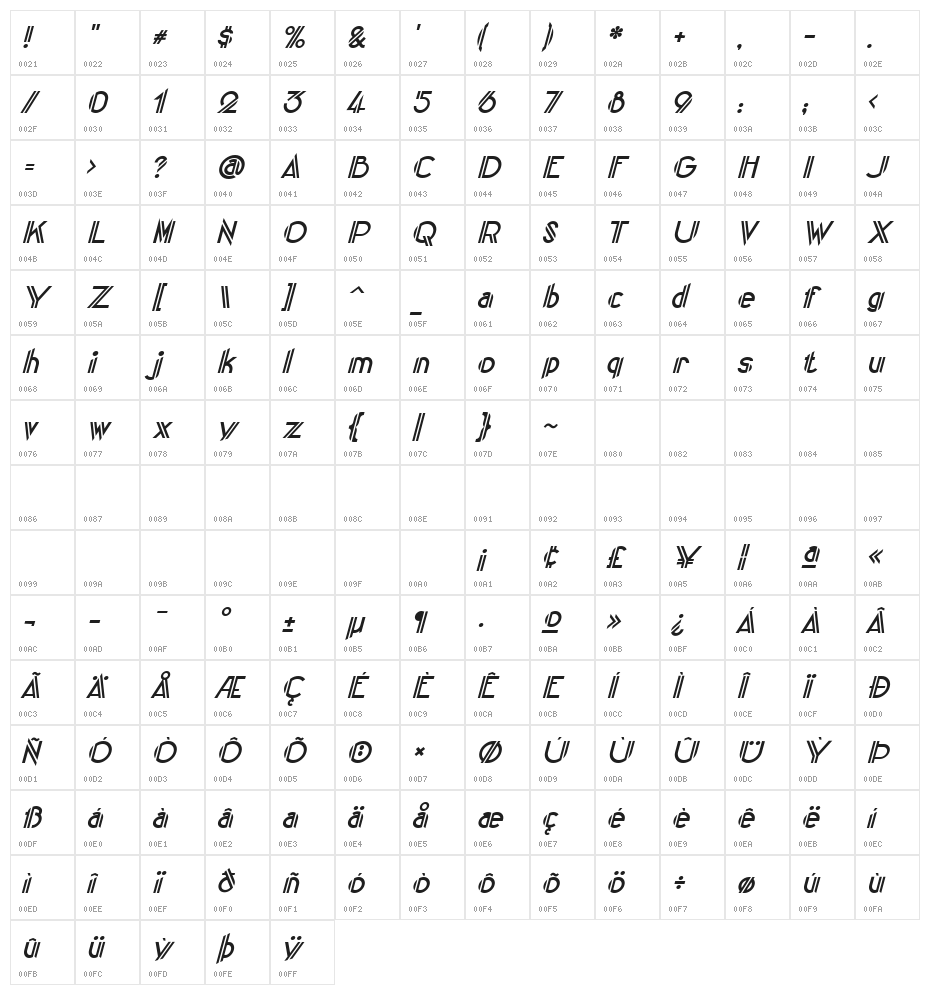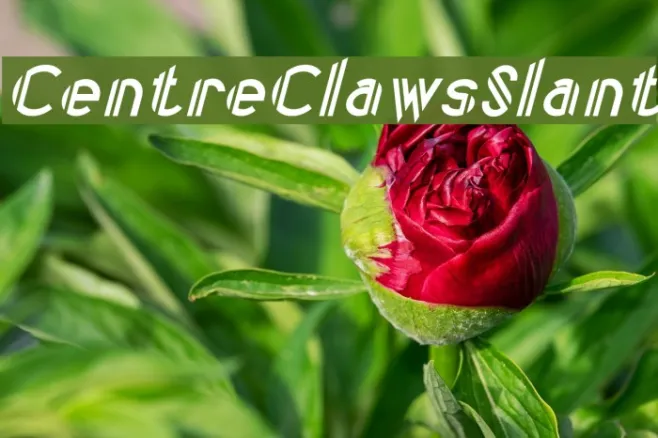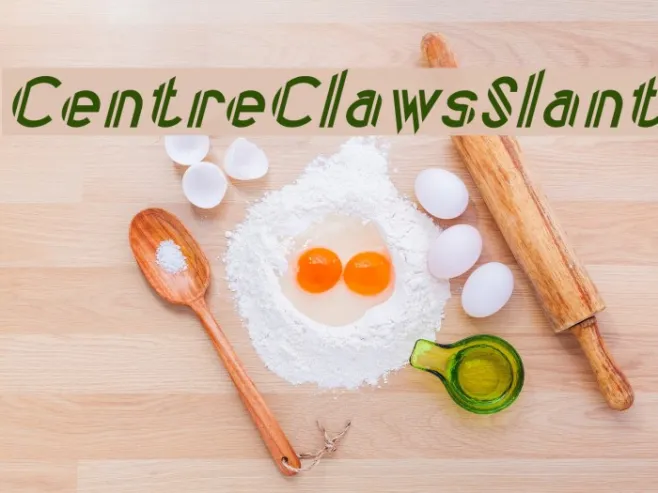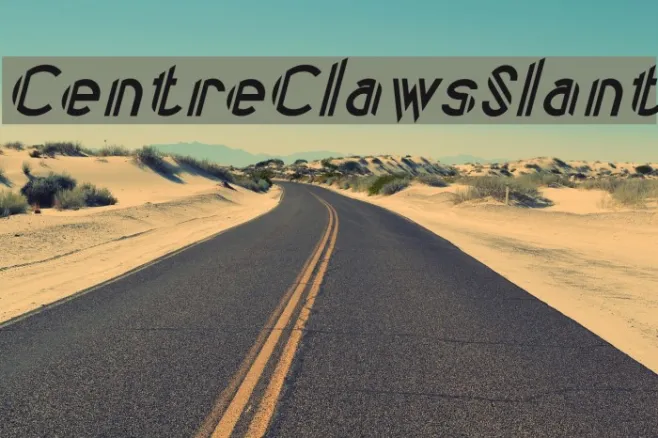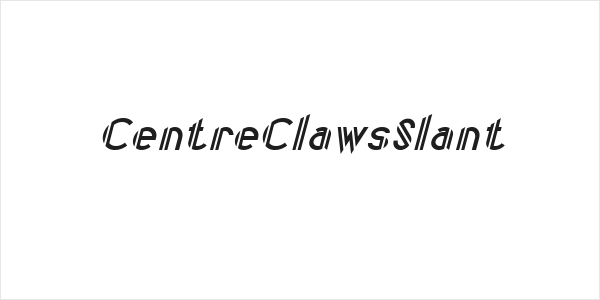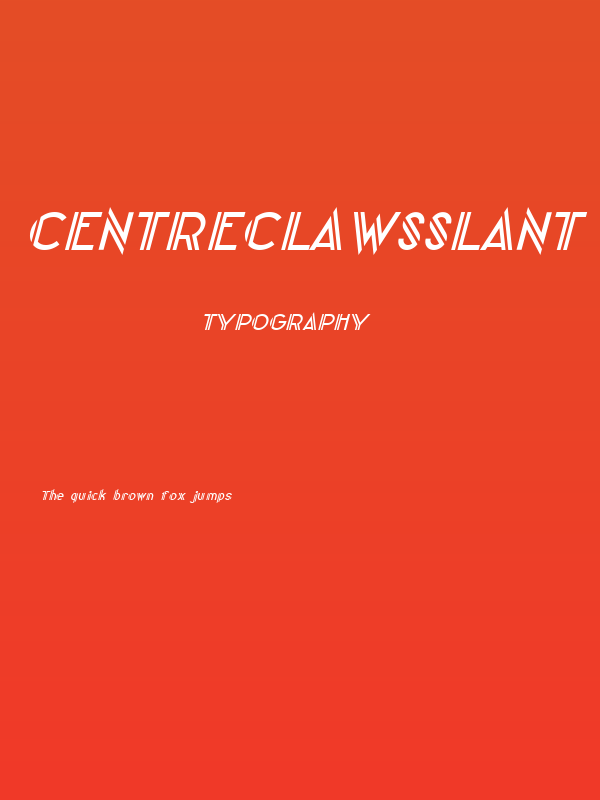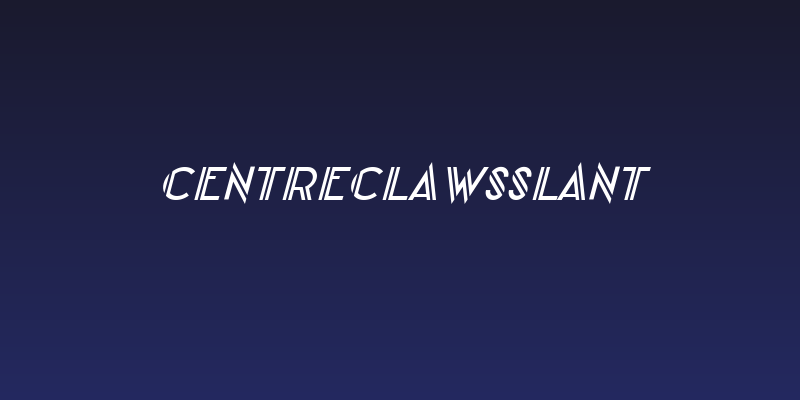
CentreClawsSlant Font
CentreClawsSlant Description
This font features a dynamic and modern slanted design, characterized by sharp, angular edges and a sense of motion. The uppercase letters are bold and striking, with a consistent slant that adds a sense of urgency and energy. The lowercase letters maintain the same slant, providing a cohesive look across the alphabet. Numbers are equally bold, with a distinctive style that makes them stand out. Special characters are designed to match the overall aesthetic, ensuring a uniform appearance. The font's unique style is both eye-catching and versatile, making it suitable for a variety of creative projects.
Proposed ProjectsIdeal for branding, advertising, posters, and any project requiring a modern, energetic look.